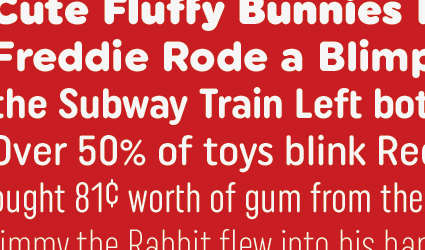
Uniform Rounded is a type family based on the 2014 Miller Type Foundry release, Uniform. This superfamily is comprised of three widths (regular, condensed, and extra condensed) each with six weights. The result is a fun and playful typeface that is extremely versatile and is a great asset for any project on any medium.